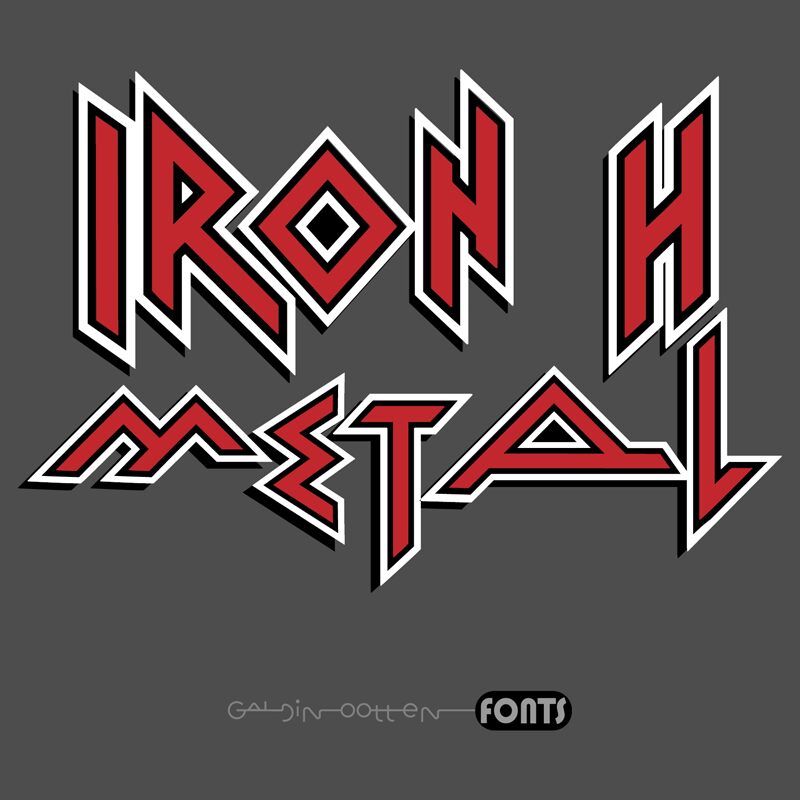
Iron H Metal Regular
Iron H Metal font by Galdino Otten Fonts is a free display typeface that cleverly combines a modern style with Gothic inspiration. Its letters are angular, decorative and intricate at the same time while making the font stand out even more. The heavy metal aesthetic was dominant in Iron H Metal as were the ornate and medieval influences.